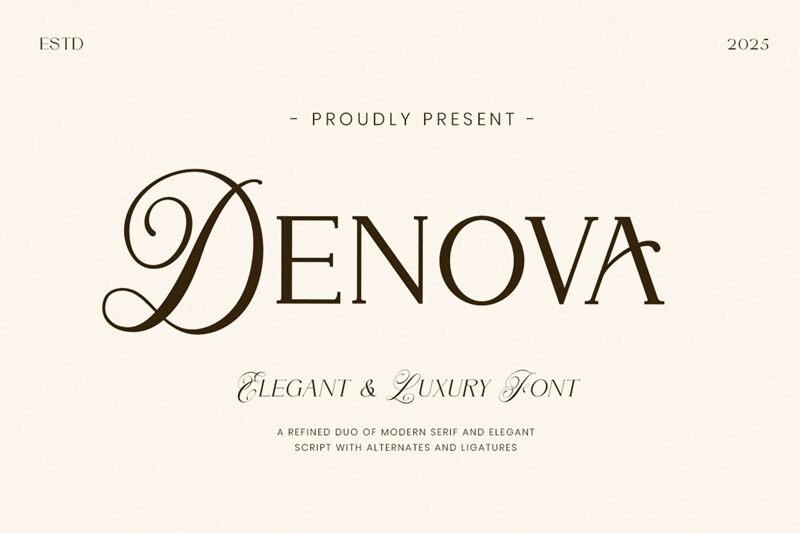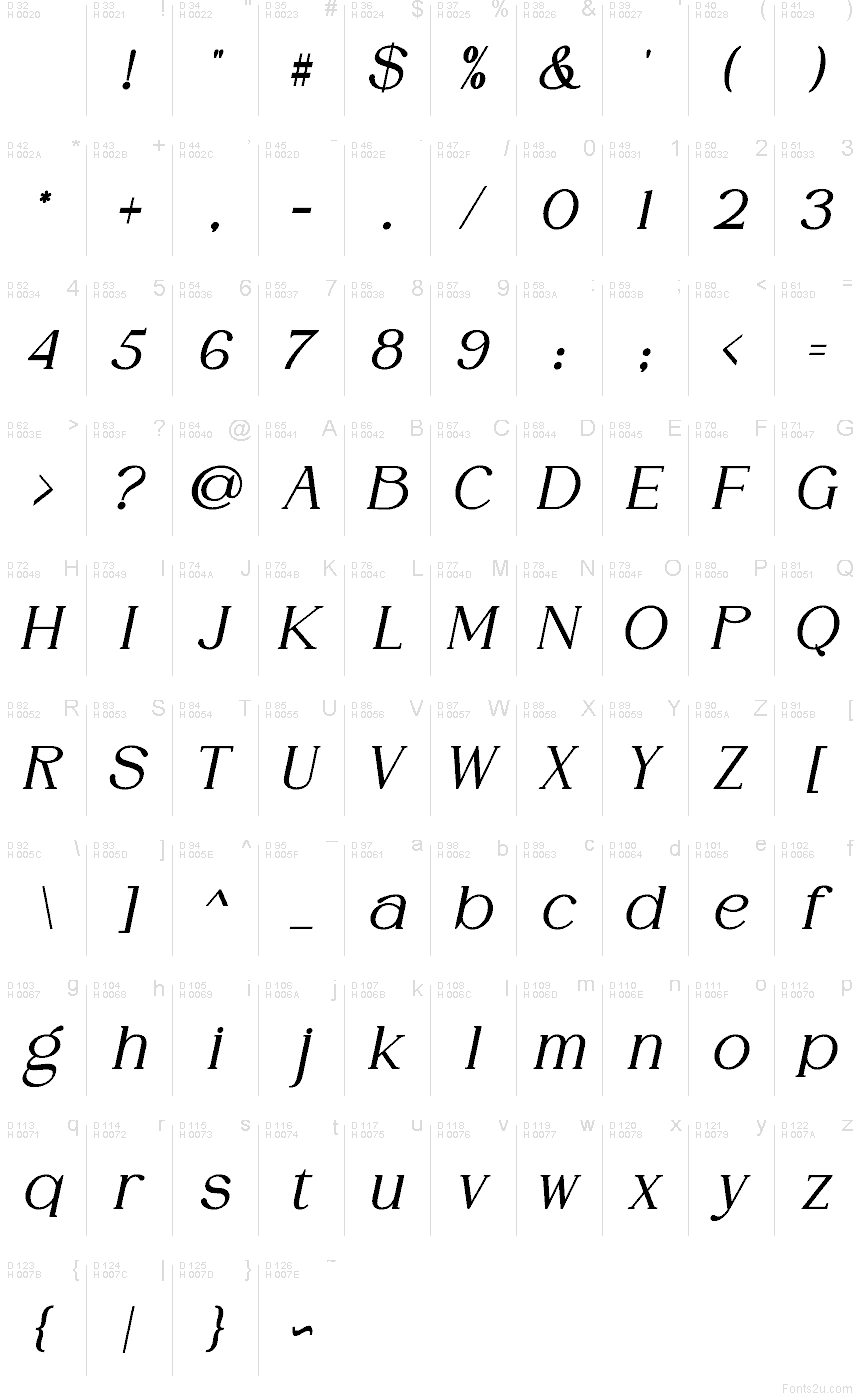
DENOVA Bold Italic
DENOVA Bold Italic font by Toni Studio is a free serif font; this DENOVA family typeface hits with a sharp, forward slant and thick, inky strokes that feel fast and editorial. The letterforms stay clean and poised, but the italic momentum adds drama—like a headline caught mid-sprint. It’s bold without getting clunky, with roomy spacing that keeps it readable at larger sizes.
Using DENOVA Bold Italic, you’ll get confident results on logos, magazine covers, fashion lookbooks, book jackets, film title cards, premium packaging, and poster headlines. Pair this free font with a quiet sans for body copy, and let the italic breathe—slightly increase letter spacing if you’re setting it all-caps.